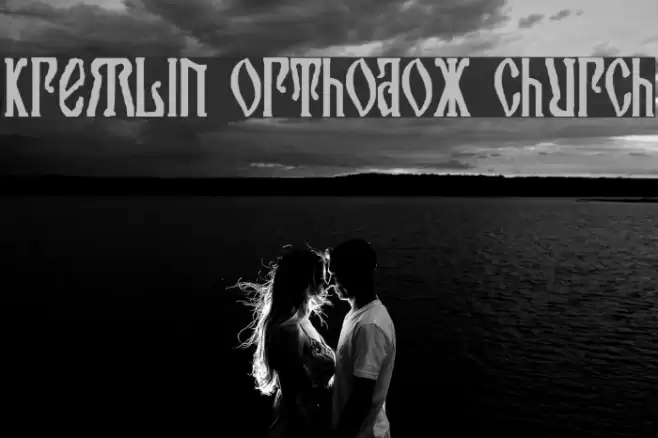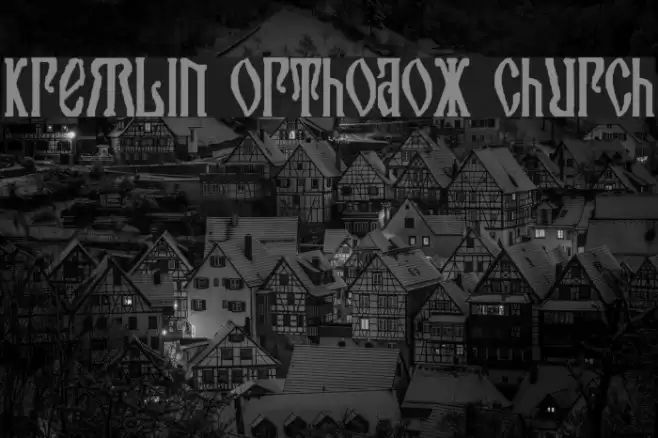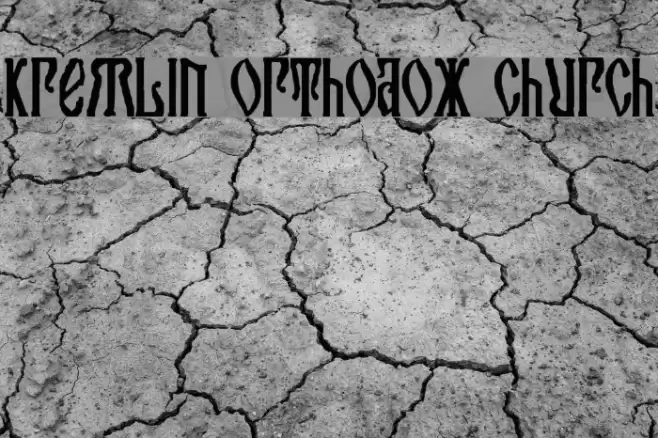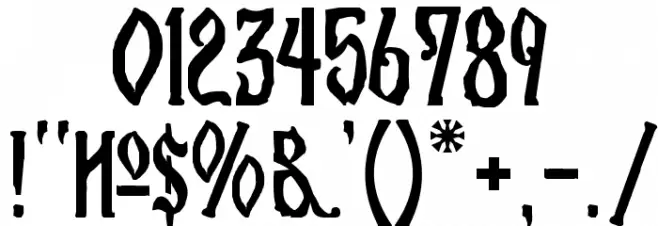
Kremlin Orthodox Church Font
Kremlin Orthodox Church Description
This font features a highly decorative and intricate design, reminiscent of traditional Eastern European and Orthodox Church architecture. The characters are bold and angular, with a distinct Gothic influence that gives them a historical and cultural depth. The uppercase and lowercase letters maintain a consistent style, with sharp edges and unique flourishes that add to the ornate appearance. The numerals and special characters are equally stylized, ensuring a cohesive look across all text elements. This font's unique aesthetic makes it stand out, offering a sense of grandeur and tradition.
A decorative, Gothic-inspired font with bold, angular characters from Uncategorized fonts.
- Proposed Projects: Ideal for historical or cultural projects, themed event invitations, or branding that requires a traditional and ornate touch.
- Overall Style: Vintage